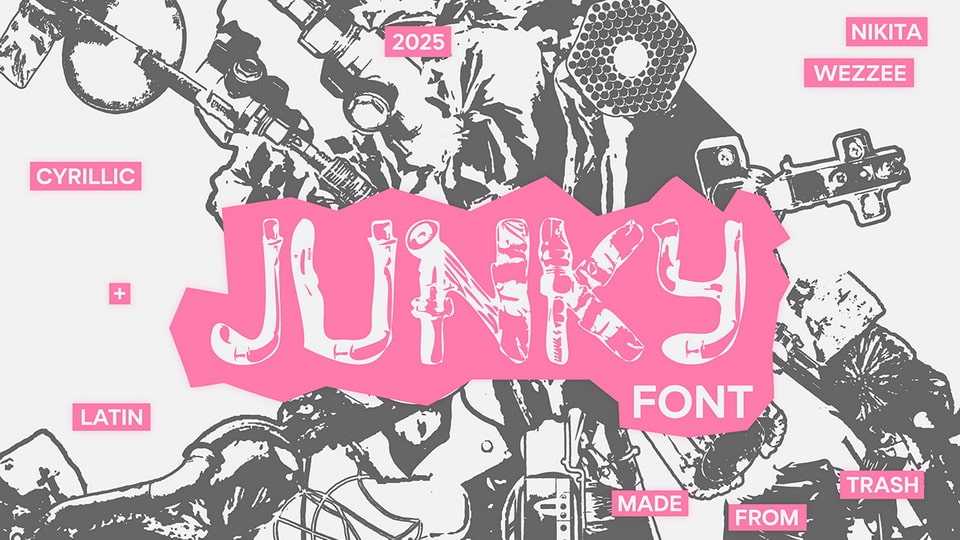
Download Junky font, a creative and unique typeface that transforms overlooked fragments of the environment into expressive letterforms that exudes raw energy and a unique aesthetic.
Designer: Nikita Mikhailov